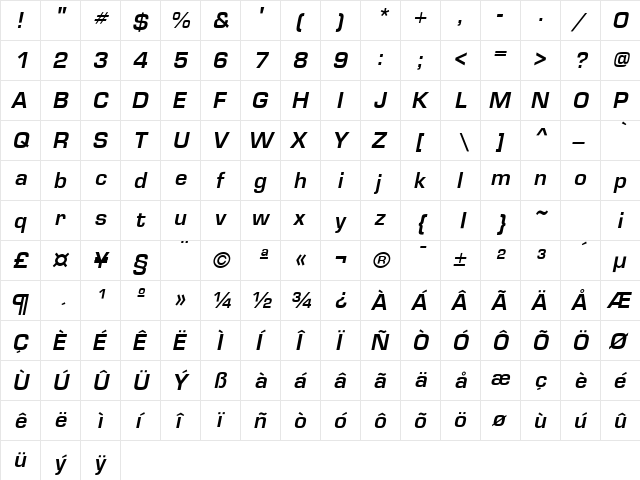
Microstile Bold-Italic
Design Context for Microstile Typeface
Microstile is a composed and adaptable typeface that performs quietly and consistently across a wide range of design contexts. The slanted form adds forward momentum and visual energy. The heavy weight commands attention and anchors typographic hierarchies.
Pro Tip: Use Microstile for emphasis, pull quotes, and subheadings where its slanted energy can add rhythm to the layout.